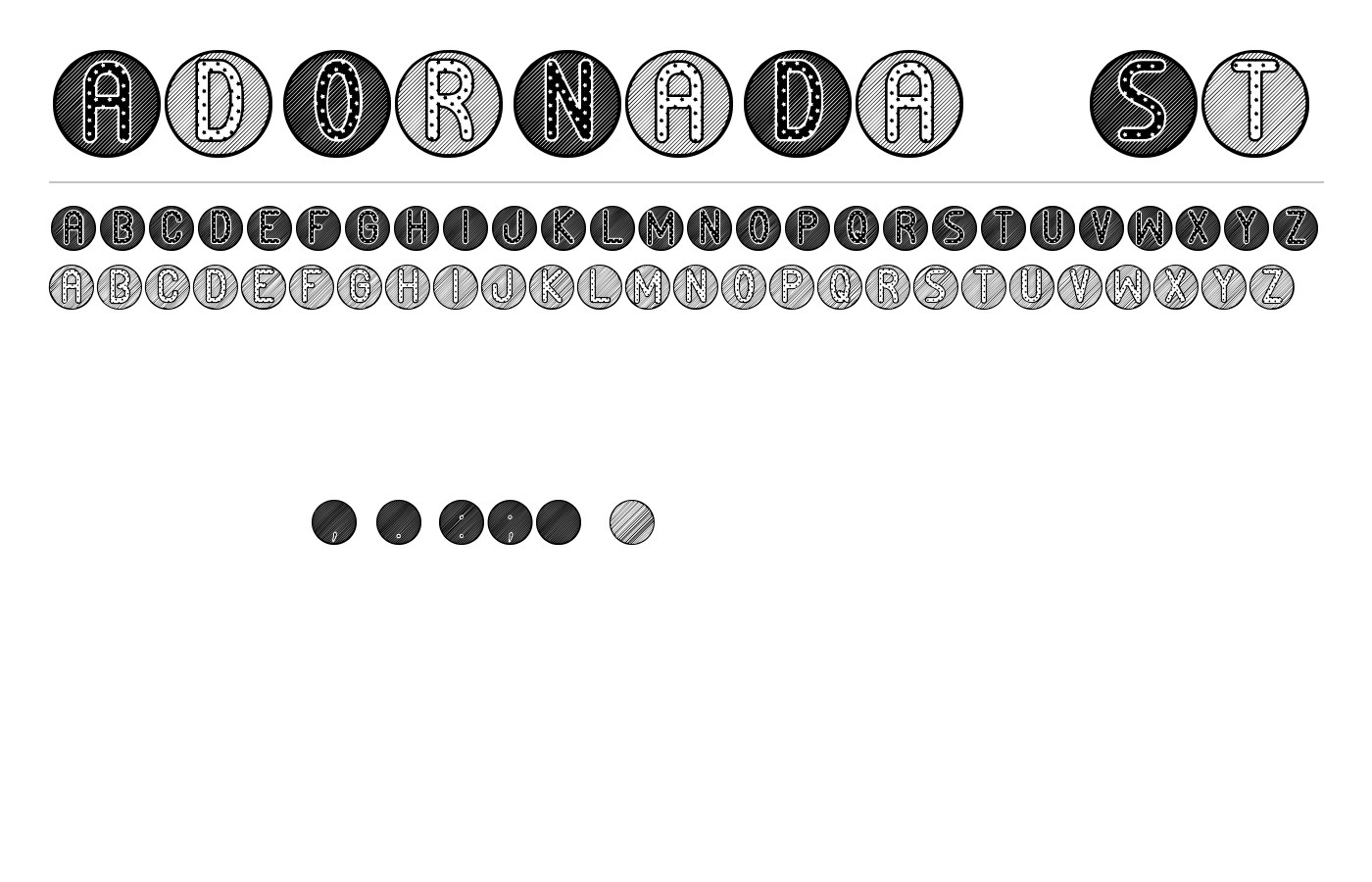
AdOrNaDa St is a decorative sans serif display font featuring bold, rounded letterforms enclosed within textured circular backgrounds that alternate between light and dark shading. Its playful, vintage-inspired style with dotted and lined embellishments makes it perfect for eye-catching logos, headlines, posters, and branding projects that seek a quirky, retro charm. This unique font injects personality and visual interest, ideal for creative and fun design contexts.
AdOrNaDa St Font
About AdOrNaDa St Font
| Font family | AdOrNaDa St Font |